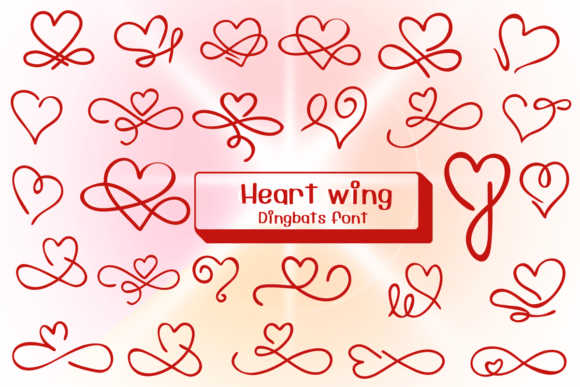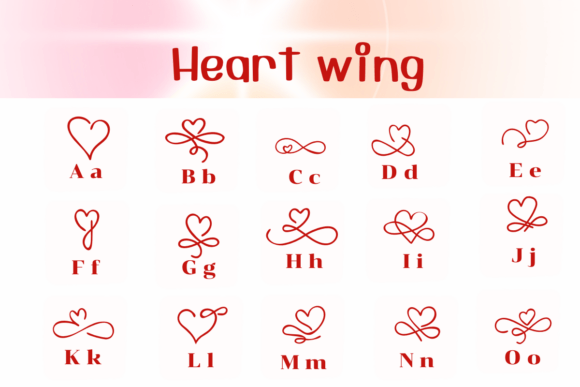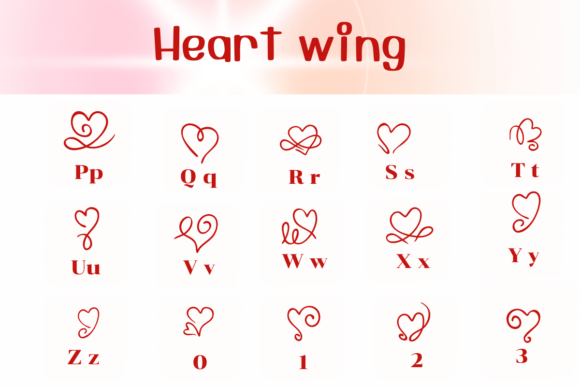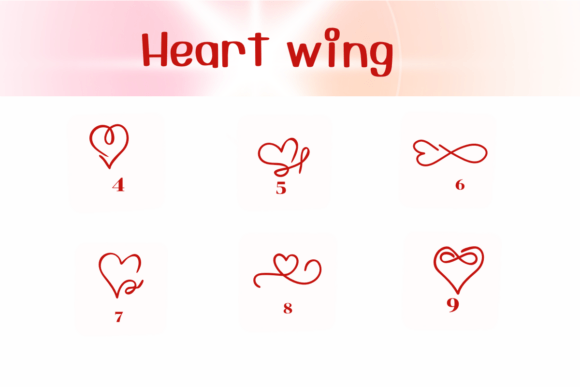
Heart Wing Font
About the Heart Wing Font
Elevate your designs with Heart Wing Font, a font that combines sophistication with readability. Heart Wing is a decorative font made of swirling hearts. It has heart shapes that flow and twist, creating a fun, playful look perfect for adding a loving touch to any design.
Heart Wing excels in projects requiring a whimsical, romantic touch. Ideal applications include branding for children’s products, wedding invitations, Valentine’s Day designs, and social media graphics where a lighthearted feel is desired. Avoid using it for body text or lengthy paragraphs; its decorative nature compromises readability at smaller sizes.
Its playful energy pairs well with clean sans-serif fonts like Open Sans for balance, or a more geometric sans-serif like Montserrat for a modern contrast. For a sophisticated pairing, consider a delicate serif like Lora, which provides a touch of classic elegance to temper Heart Wing’s exuberance.
The font’s core personality is undeniably playful and friendly, making it unsuitable for projects requiring seriousness or professionalism. However, used sparingly and strategically, it can inject a delightful charm into otherwise straightforward designs.
Heart Wing Font Usage Examples
Heart Wing Font Example